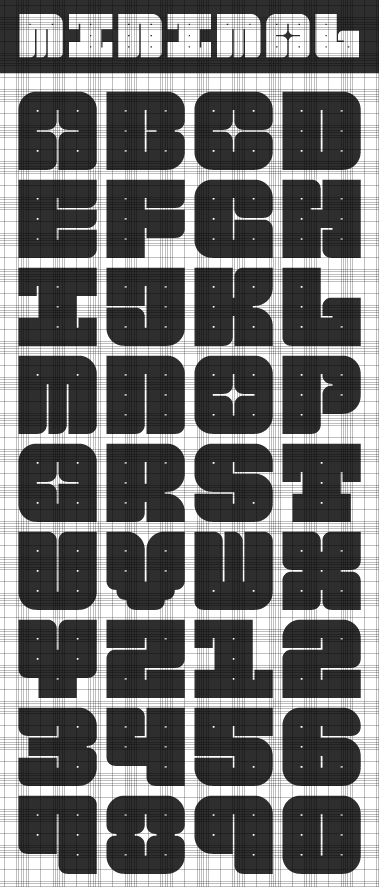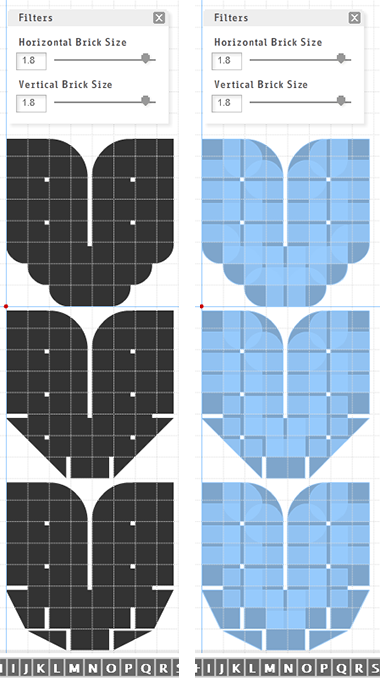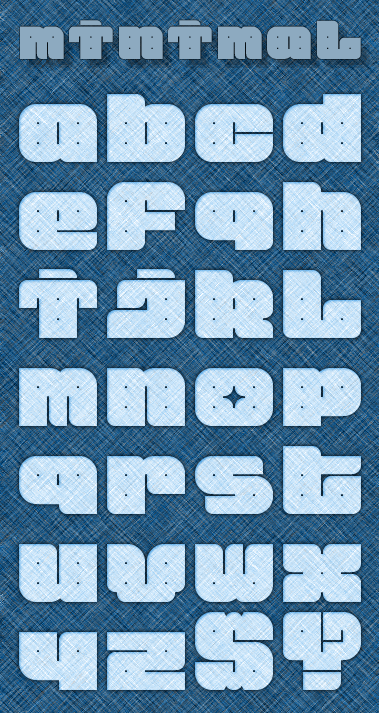
• I really like the way this one turned out. It uses minimal grid blocks to achieve the desired effect (although at ~2x2 and the slivers and the pinhole dots, there are a surprisingly large number of actual bricks used per glyph than evident at a quick glance, although not a single overlapping brick is used without express purpose). I think this is my favorite of all the ones I've done so far. It is with nervous anticipation that I let it free. Go forth and propagate, young font; it's You v World!
A perfect 10 :D
A REAL monospace!
The F is great!
The K is lovely!
The X is extraordinary!
The Q is brillant!
Each Glyph is a "augenweide" (can't
explain it in english ... and it means: goood!)
Words fail me. The numerals are delicious.
this is nice. very astronomical :)
I agree. This is perfectly pleasing. The V and X are inspired. The whole thing is inspired. Can I sublet your muse for a week or so?
@guentersen: augenweide=eye candy. Sweet!
@intaglio: I did this a couple of weeks ago. It took me this long to get the nerve to share it. Ah! the muse, so fleeting her visits.
A decorative minimal font: very inspiring!
Gorgeus! Brilliant! Awesome!....10 points!
Never did the pink dot more deservedly fall from heaven.
Thalamic, an "all black" version without the pinholes would be interesting too...
@Axel: This font started out as all black. The pin holes were an accident of brick placement which I liked so much I went and poked holes in all the other glyphs as well. I'm happy to let this font be sans siblings.
I agree that this is an awesome typeface. not only is it well crafted but there's a really well thought of concept behind it. there's just one thing that bothers me. I don't like the V solution. I know it's an extraordinary letter and the similarity to the U requires special treatment but I would prefer straight diagonal lines. the letter falls out of the concept anyway so you could as well use straigt diagonal lines there, though you didn't use them on the other letters. it would fit better to the geometrical charakter of the typeface and the current solution is too random in my opinion.
@saberrider: You are absolutely right. I wanted to use diagonals for the V. The problem is, this font uses 1.8 × 1.8 brick scaling to achieve the slivers of negative space. That scaling caused a problem of leaving gaps between each brick, which I had to fill with overlapping bricks, placed strategically. This same technique give rise to the pin holes as well. Using the appropriate overlapping brick at specific intersection was the key in getting the smooth curves and fills. This technique worked for all characters except the V. The gaps left by the angled bricks was not possible to fill using any existing overlapping brick. The rounded edges of the V were the only possible way to stay within the parameters of this font's design. Having said all that, I actually like the V solution. I worked up other angled V's here (see below) to show how the angles did not work in this font. (The overlapped areas are light purple (?) in the image below).
Can I disagree? If you have to bring the V into line, you've got to bring the X in line too. Although it's more "right" than the V it's also on the cusp of weird. No no no. I reckon the V is inspired and shouldn't be mucked about with.
There are plenty of famous fonts that have one or two quirky "wrong" characters. We don't see them as wrong any more because we don't see the wrongness anymore. I love that.
Sorry saberrider I reckon thalamic was visited by the muse one night and everything about this font is perfect.
I do believe that one of the reasons this font works is because although there are strong design limitations in this font, they are not so strict that they cannot be violated here and there. It makes the flow of characters less monotonous...I think.
FS_Minimal...now with lowercase, $ and--thanks for reminding me, intaglio--introbang.
gorgeous.
I've been trying to take a break from the guilty pleasure of FontStruct to get some actual work done, but I couldn't help myself with this. This one's sweet, thalamic. Love the lowercase samples. 1.8 is a tricky grid workspace and you've done really well with it. Here's just another option for the V that is in between existing solutions. The only other character I'd modify is the left side of the number 7 which I would raise one grid space to set it apart from the number 9.